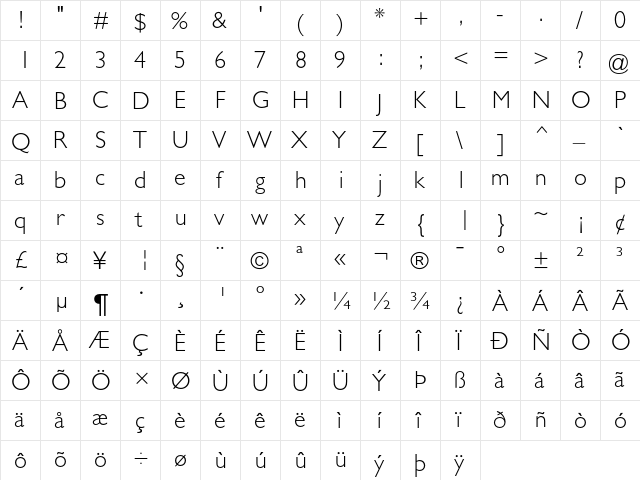
Gill Sans Light
Design Context for Gill Sans Typeface
Gill Sans takes a measured approach to typography — its balanced proportions and neutral character make it a reliable workhorse for both digital and print work. Its slender proportions lend an understated elegance to any composition.
Pro Tip: Pair Gill Sans with a font of contrasting weight or personality to build a more expressive typographic hierarchy.